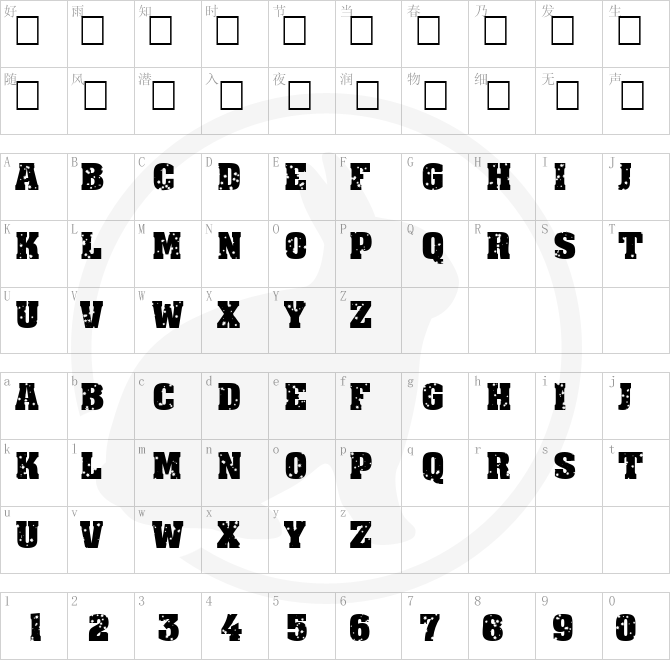
- Font Name:a_AssuanTitulStrDst
a_AssuanTitulStrDst-Bold.ttf is a very beautiful artistic font, a_AssuanTitulStrDst-Bold.ttf is widely used in the design and printing of various books and pictures,a_AssuanTitulStrDst-Bold.ttf has a strong visual impact,a_AssuanTitulStrDst-Bold.ttf is a commonly used font in newspapers, magazines and books, and is used in posters, e-commerce Poster design, store design, logo design, font design and other fields.a_AssuanTitulStrDst-Bold.